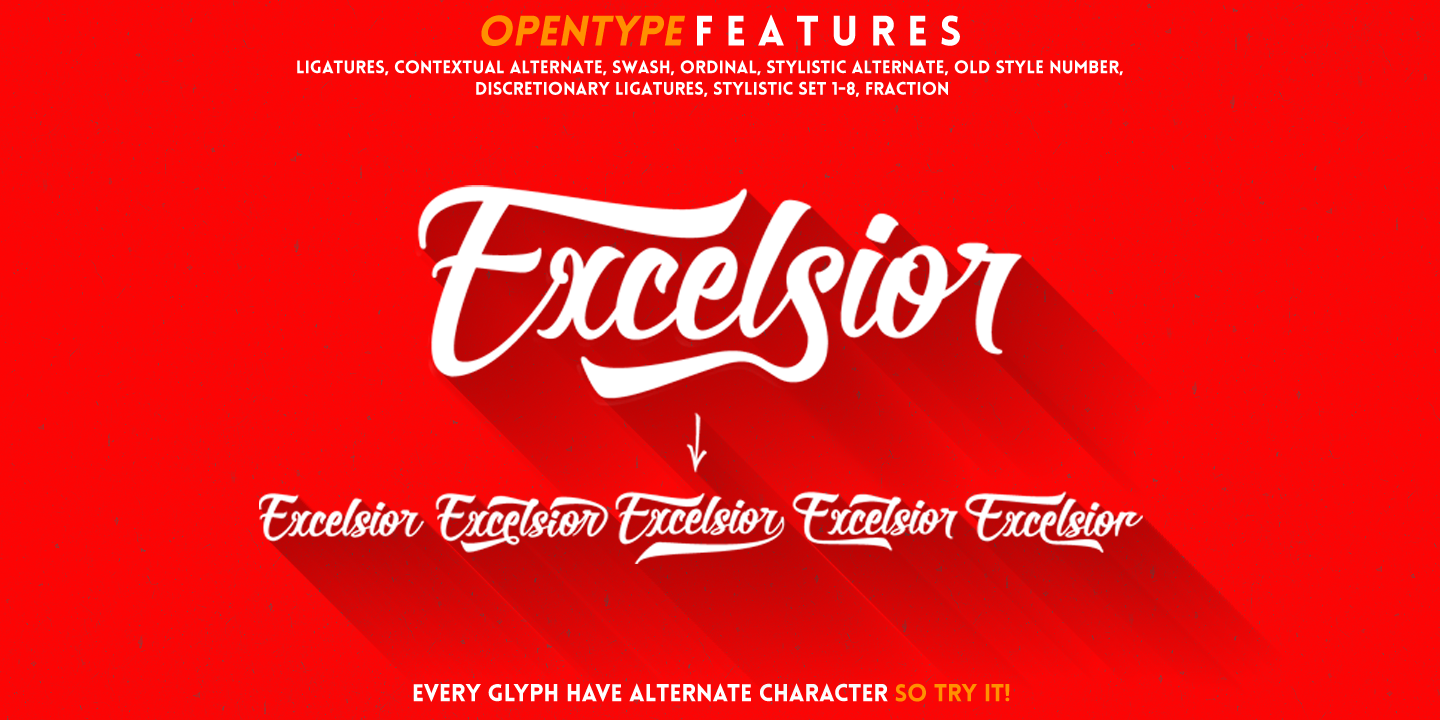
Roverd is a script font published by Majestype.
Roverd is a Script-Brush-Retro font that come with 700 Glyph and equipped with OpenType feature for make custom feel for your design.
This font is designed for design purposes such as t-shirts, logos, posters and etc.